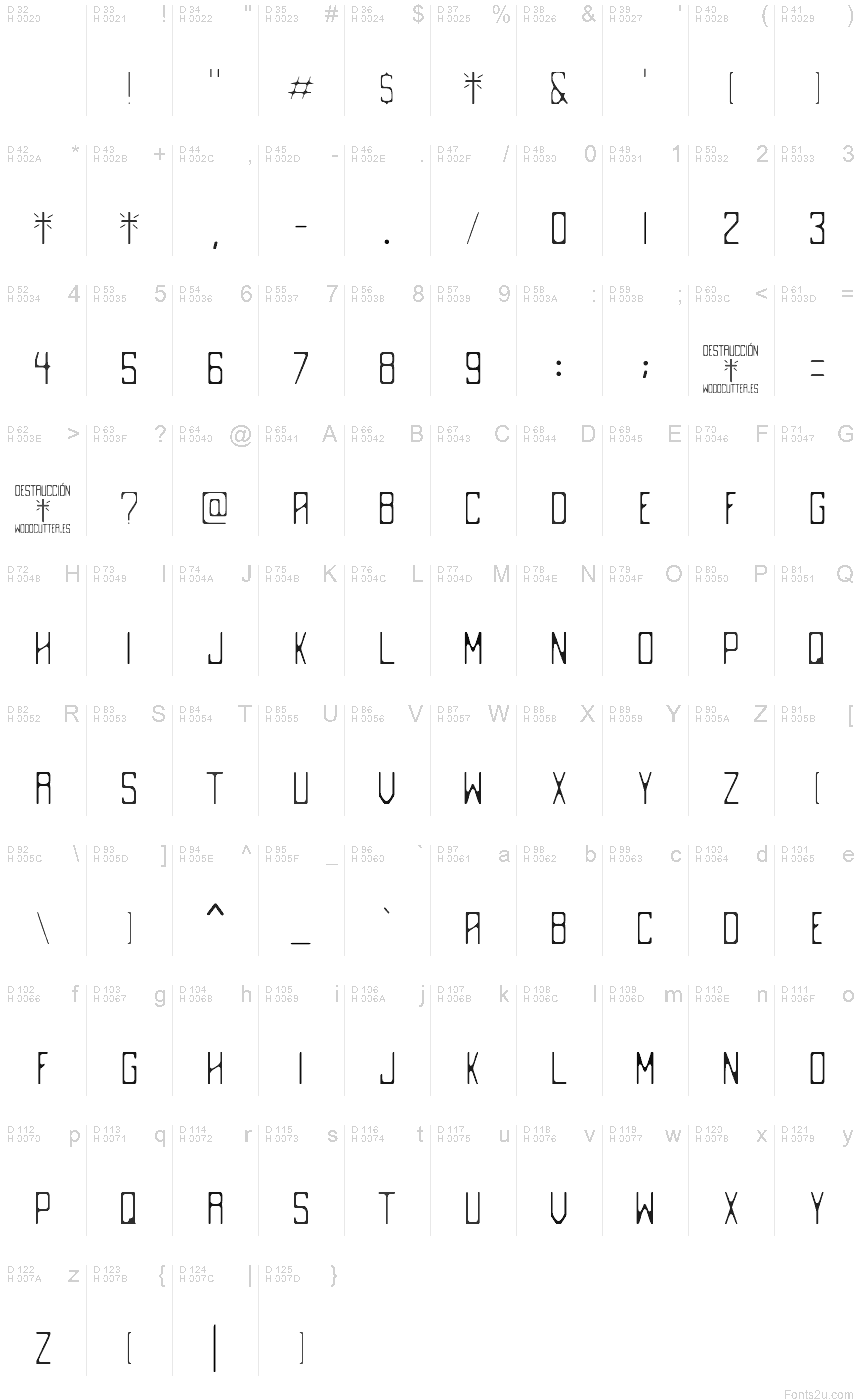
DESTRUCCION
Destrucción, designed by Woodcutter Manero, is a free condensed geometric display font with an austere, industrial cast. Its tall letters are built from monoline strokes, tight curves, and sharply cropped joins. The forms feel machined and severe.
Posters are its clearest setting, particularly for electronic music and dystopian entertainment. The narrow proportions and modular cuts also suit album artwork and fashion branding with a cold, underground direction. On merchandise, the lettering can become part of a stark architectural graphic rather than neutral text.